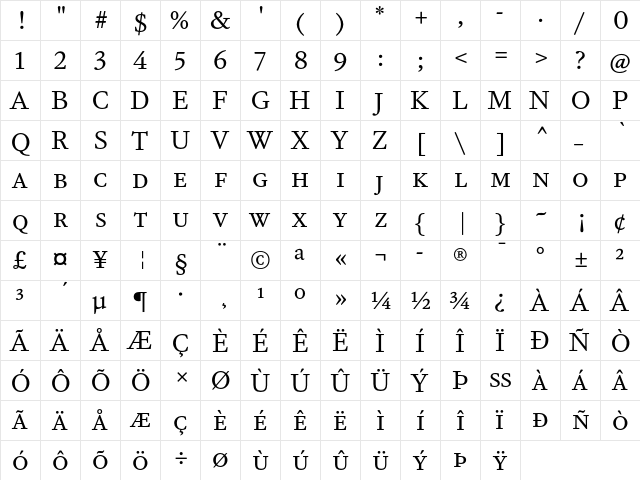
DB Serif SC Regular Font Preview
DB Serif SC Regular
DB Serif SC Regular Font Details
Design Context for DB Serif SC Typeface
DB Serif SC brings classic typographic sensibility to the table — its serifs and measured letterforms reflect centuries of print heritage.
Pro Tip: Use DB Serif SC for editorial body copy and considered headline work. Pair with a neutral sans for UI elements or captions to create a classic hierarchy.